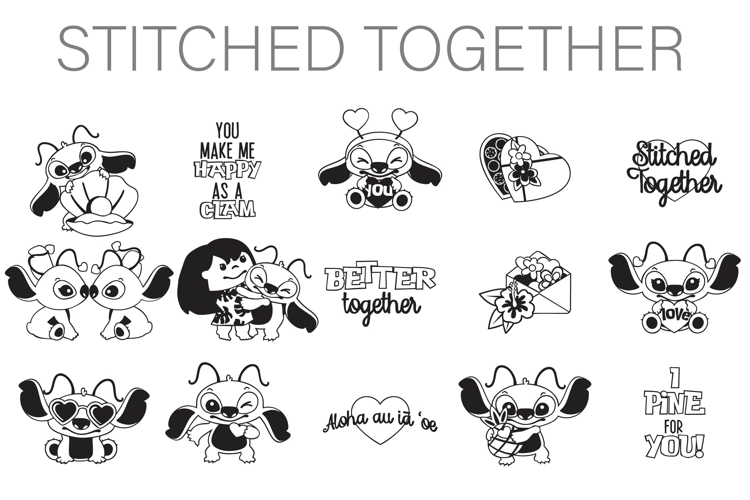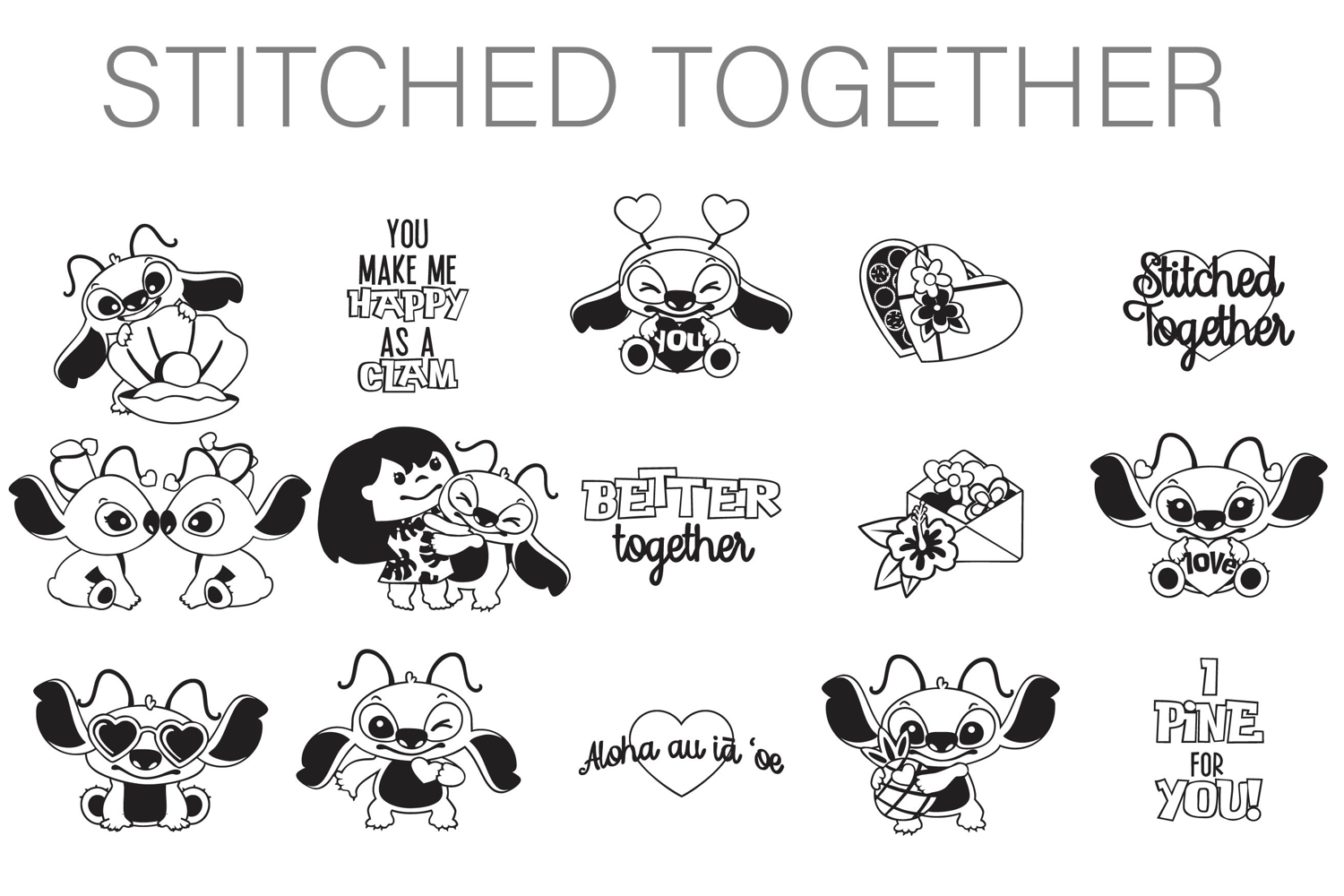
Unlock endless creativity with this dingbat font! This dingbat font features a variety of tropical items and Hawaiian characters with an emphasis on love.